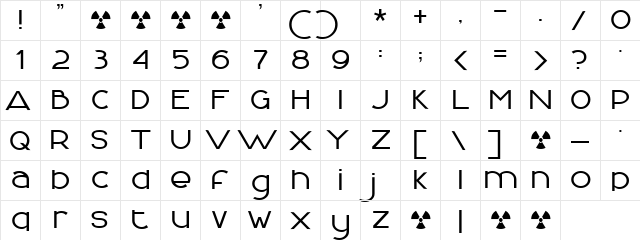
FontLogic Normal
Design Context for FontLogic Typeface
FontLogic offers clean, dependable letterforms without strong stylistic allegiance, making it a practical choice for designers who need flexibility.
Pro Tip: Use FontLogic in both headline and body roles to test its range before committing to a single application.